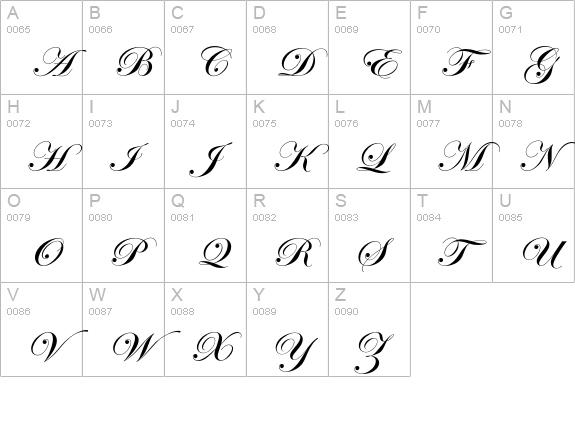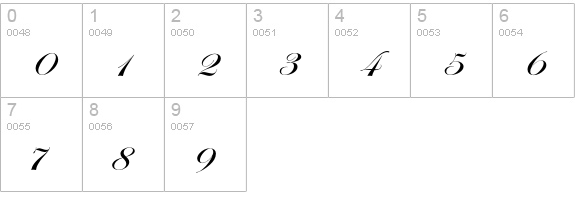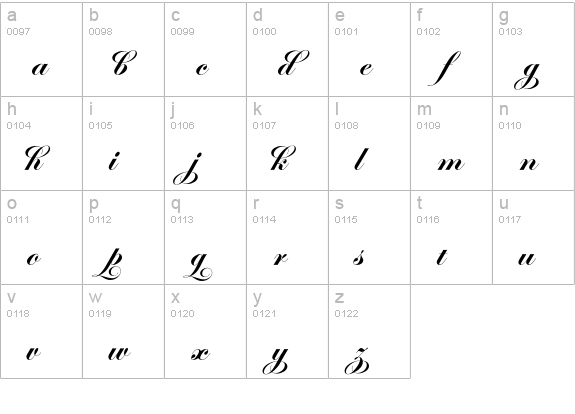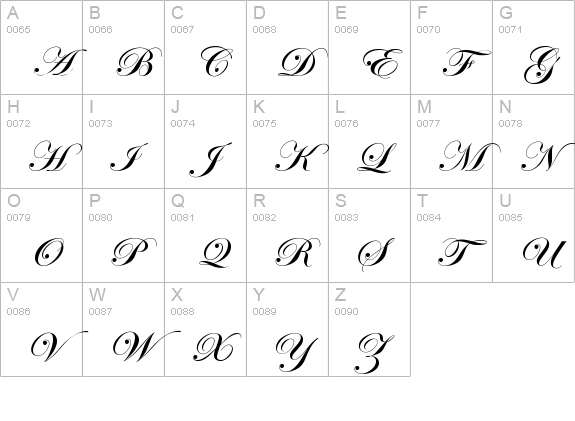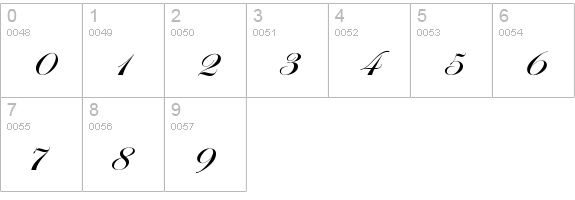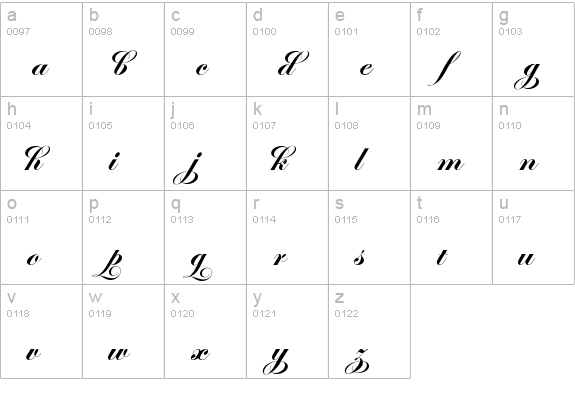
EdwardianScriptEF-BoldA is a beautiful and elegant font that captures the essence of the Edwardian era. This font exudes sophistication and refinement, making it the perfect choice for projects that require a touch of old-world charm. With its intricate and flowing letterforms, EdwardianScriptEF-BoldA adds a touch of elegance to any design. Whether you're creating wedding invitations, personalized stationery, or elegant signage, this font will elevate your creations to new heights. What sets EdwardianScriptEF-BoldA apart is its versatility. It can be used for both formal and informal designs, making it suitable for a wide range of projects. From elegant wedding invitations to vintage-inspired branding, this font will add a touch of class to any design. And the best part? EdwardianScriptEF-BoldA is available for free download at FontsMarket.com. This means that you can easily access and use this stunning font without any cost. It's the perfect opportunity to add a touch of elegance to your projects without breaking the bank. So why wait? Download EdwardianScriptEF-BoldA today and let its timeless beauty elevate your designs. Whether you're a professional designer or a creative enthusiast, this font is sure to become a staple in your collection. Don't miss out on the chance to add a touch of Edwardian elegance to your creations for free.